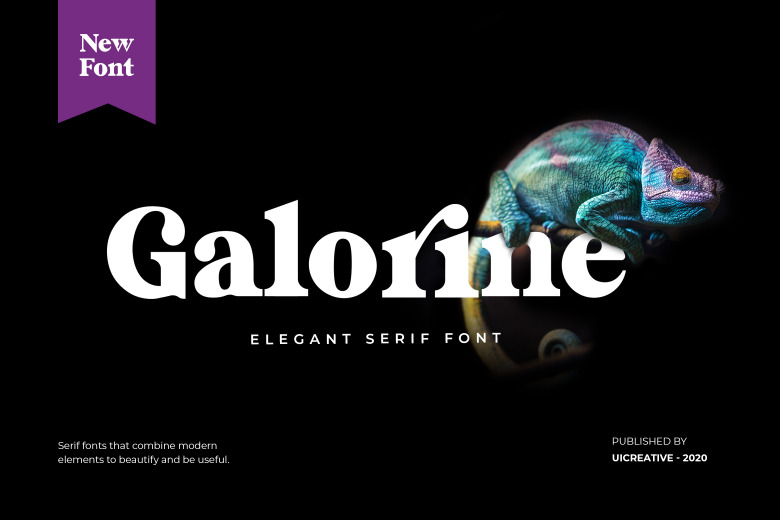
Galorine Font
Galorine is an elegant and thick lettered serif font. Authentic but with a strong visual effect, this font will instantly make your creation more appealing than any others.
Galorine Elegant Serif Font